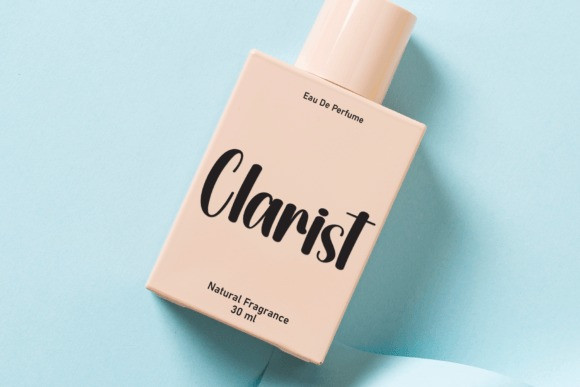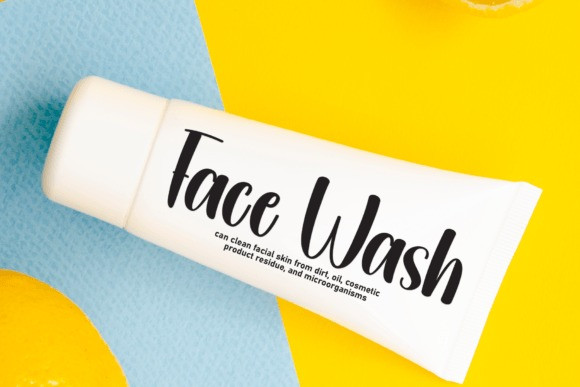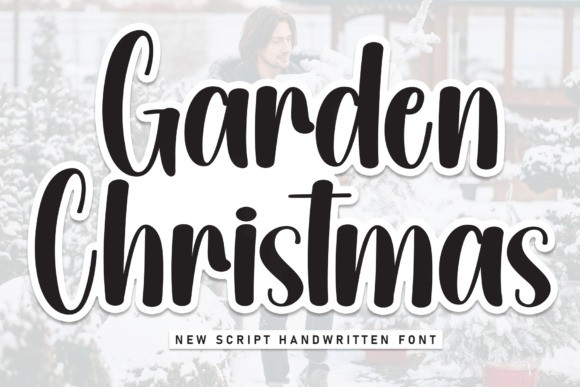
Garden Christmas Font
Garden Christmas Font is a magical script font carefully created with a touch of elegance. Whether you’re looking for fonts for Instagram or calligraphy scripts for DIY projects, this font will turn any creative idea into a true piece of art!